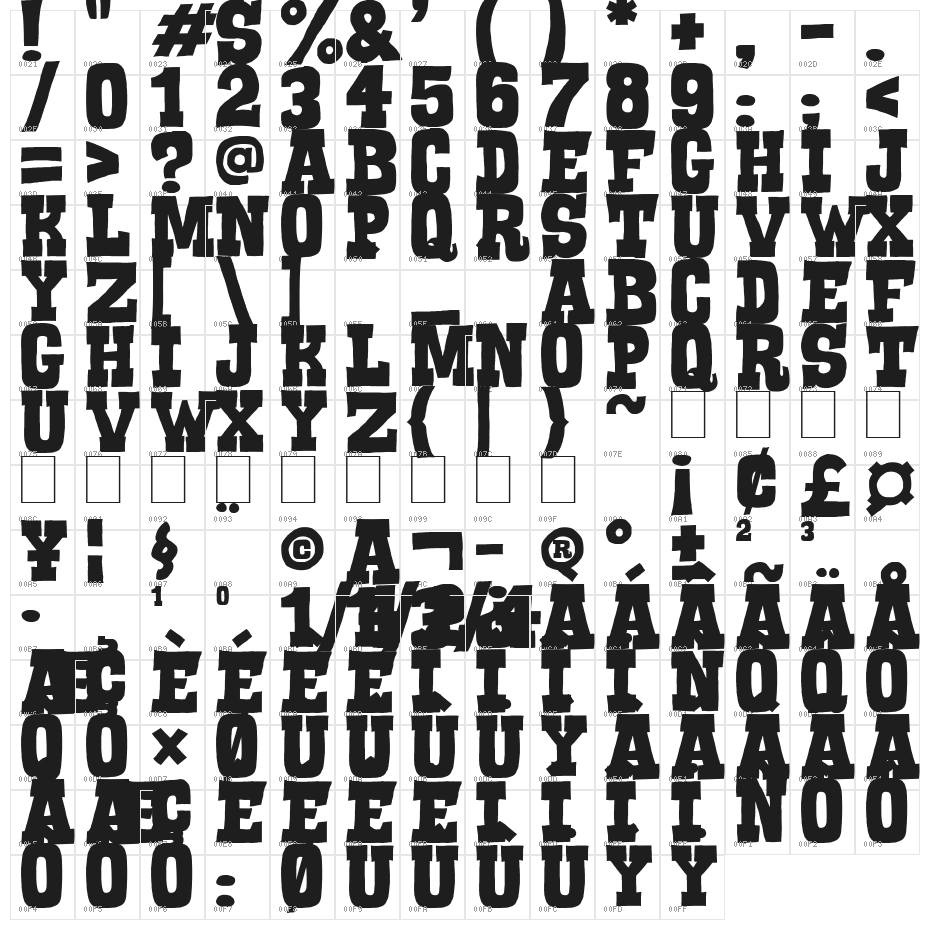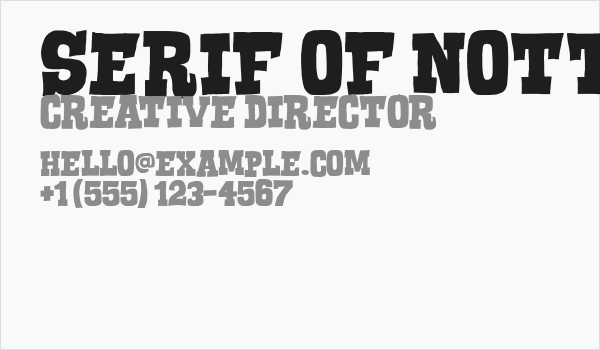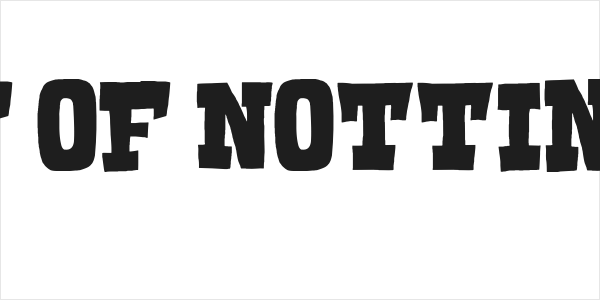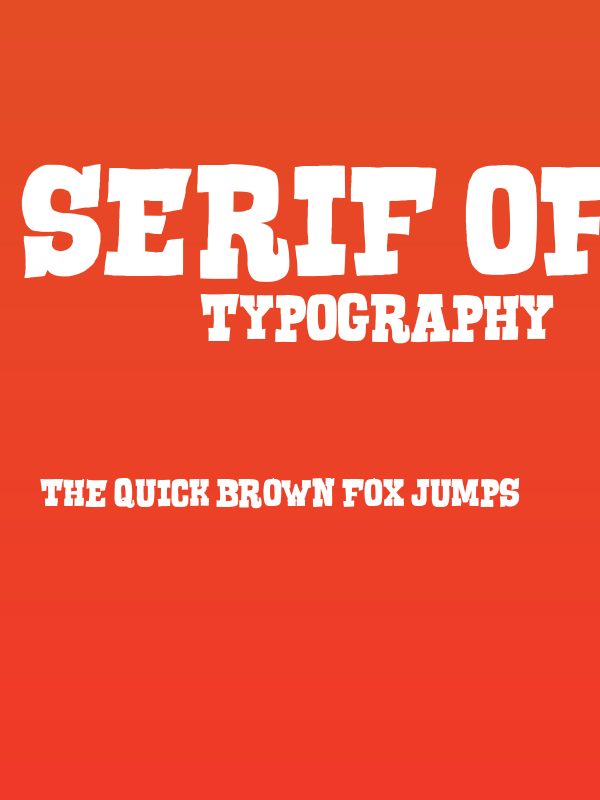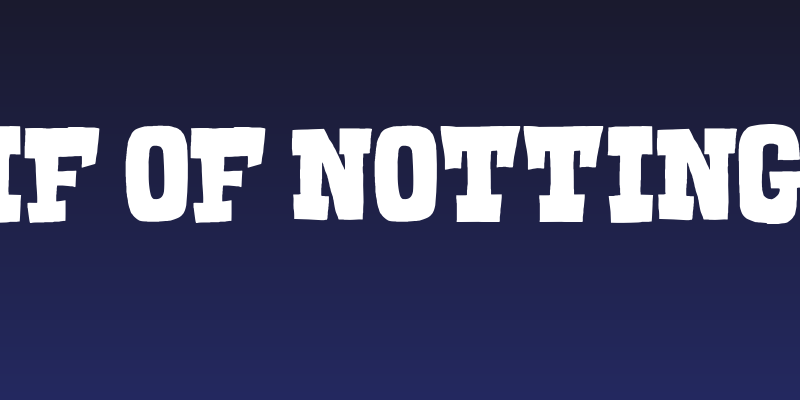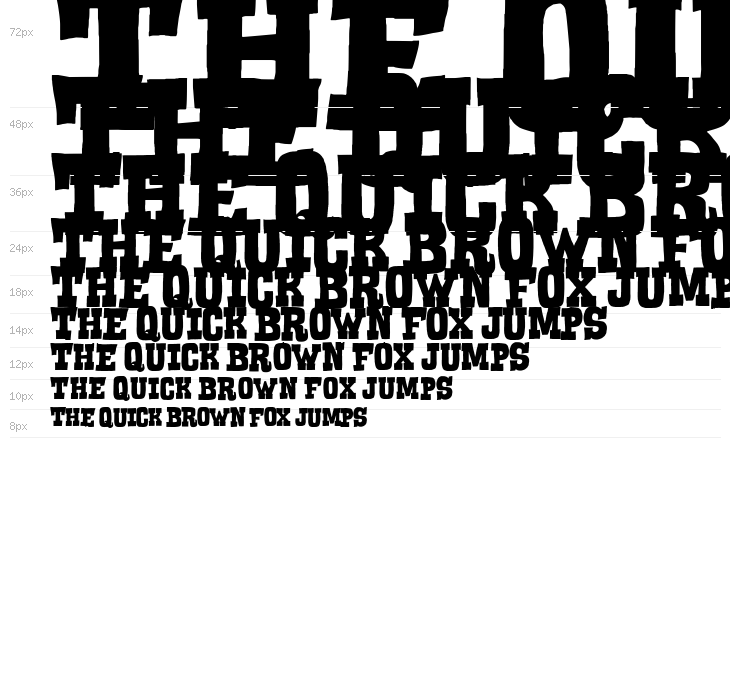
Serif of Nottingham Font
Serif of Nottingham Description
This font features a bold and robust design with strong serifs and a distinct Western flair. The characters are heavily weighted, giving them a commanding presence ideal for attention-grabbing headlines or signage. The uppercase letters are particularly striking, with wide, blocky forms that convey a sense of strength and stability. The numerals and special characters maintain this bold aesthetic, ensuring consistency across all uses. The overall style is reminiscent of vintage Western typography, making it perfect for projects that require a touch of rugged charm.
| Proposed Projects | Ideal for posters, signage, branding projects, and any design requiring a vintage Western aesthetic. |